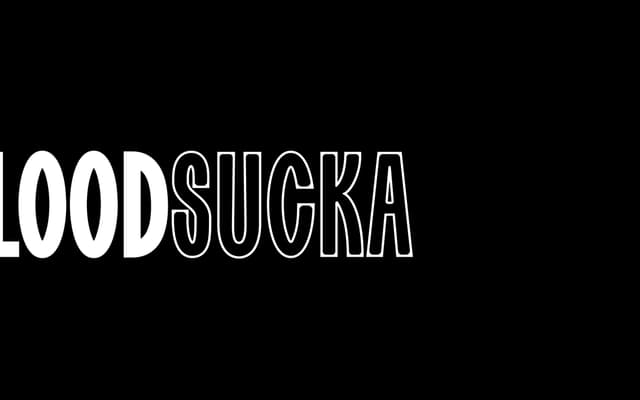
Bloodsucka
A condensed irregular display sans in two layerable styles designed for headline use with a raw, hand-touched character.
Two styles, Filled and Drained, work independently or in combination, with Drained sitting atop Filled to produce an outlined effect. The irregular letterforms give it a hand-made, slightly unsettled quality suited to music, editorial or horror-adjacent branding. At $25 it is accessible, though its single weight and narrow application scope limit its versatility.
An irregular condensed display sans with two layerable styles; the unconventional letterforms and layering system place it firmly in the display category rather than functional text use.